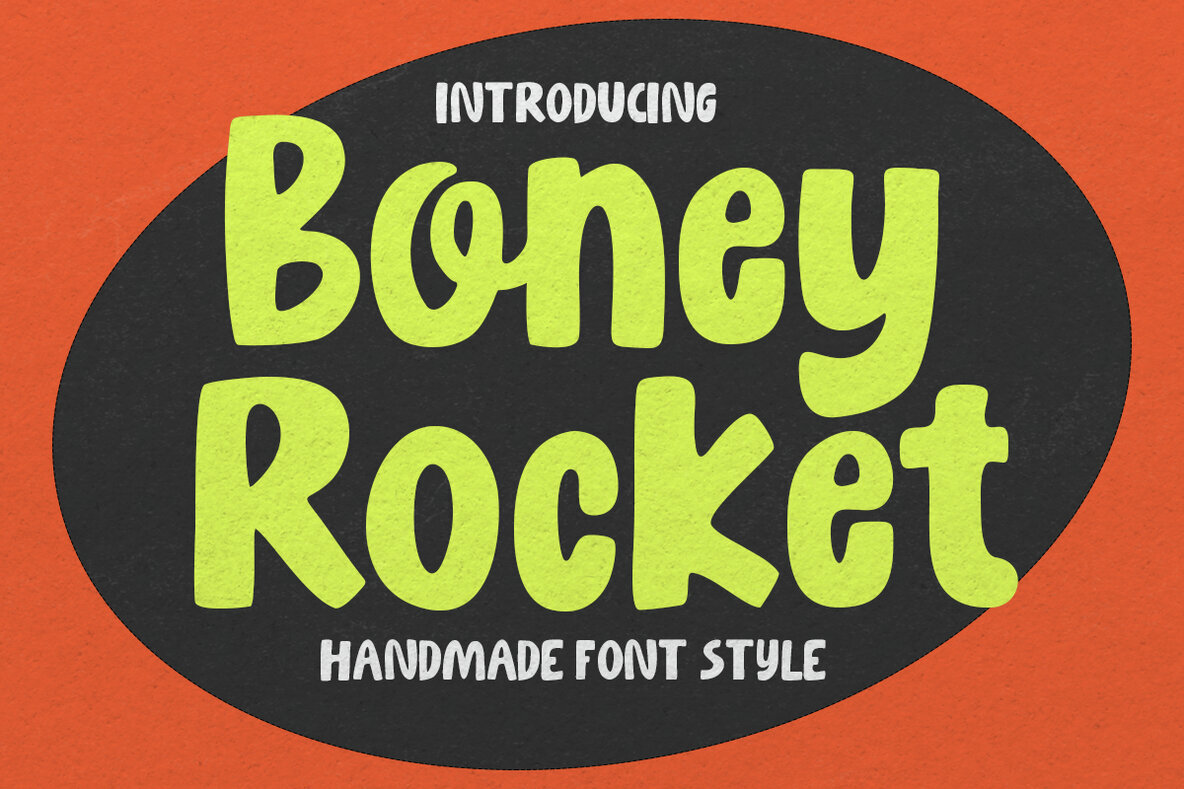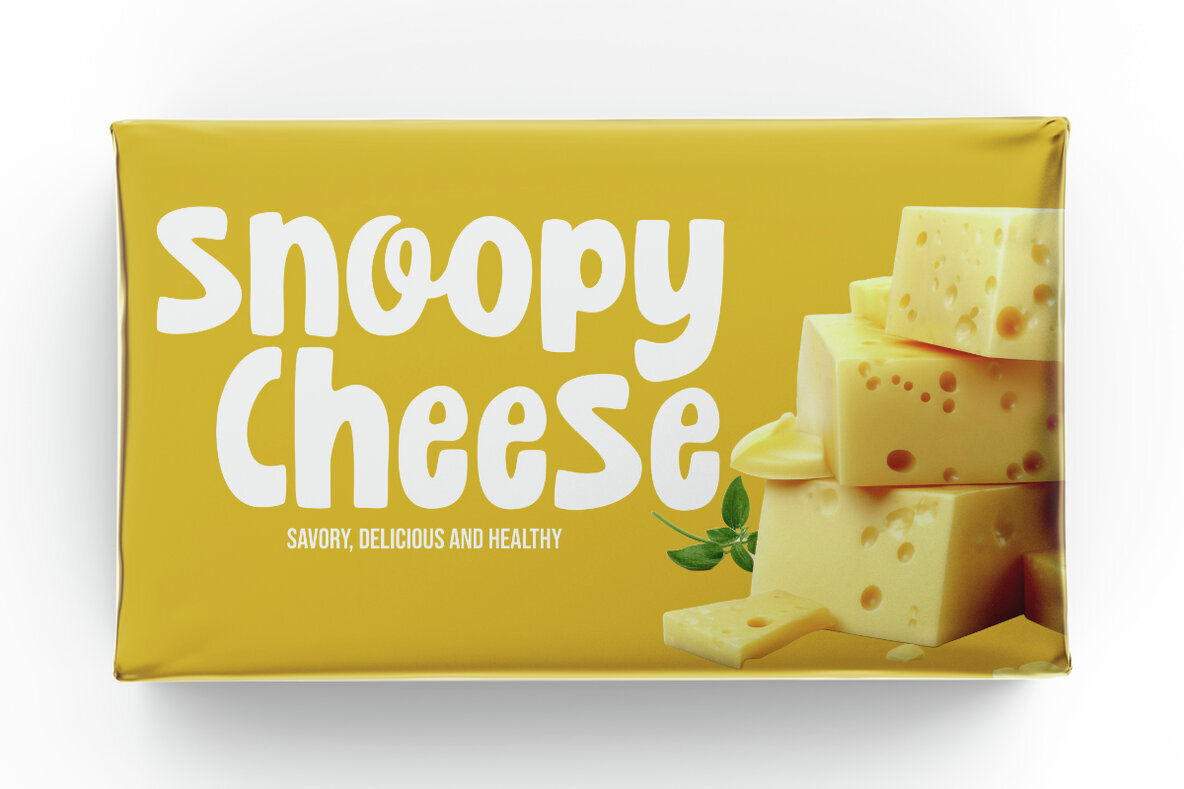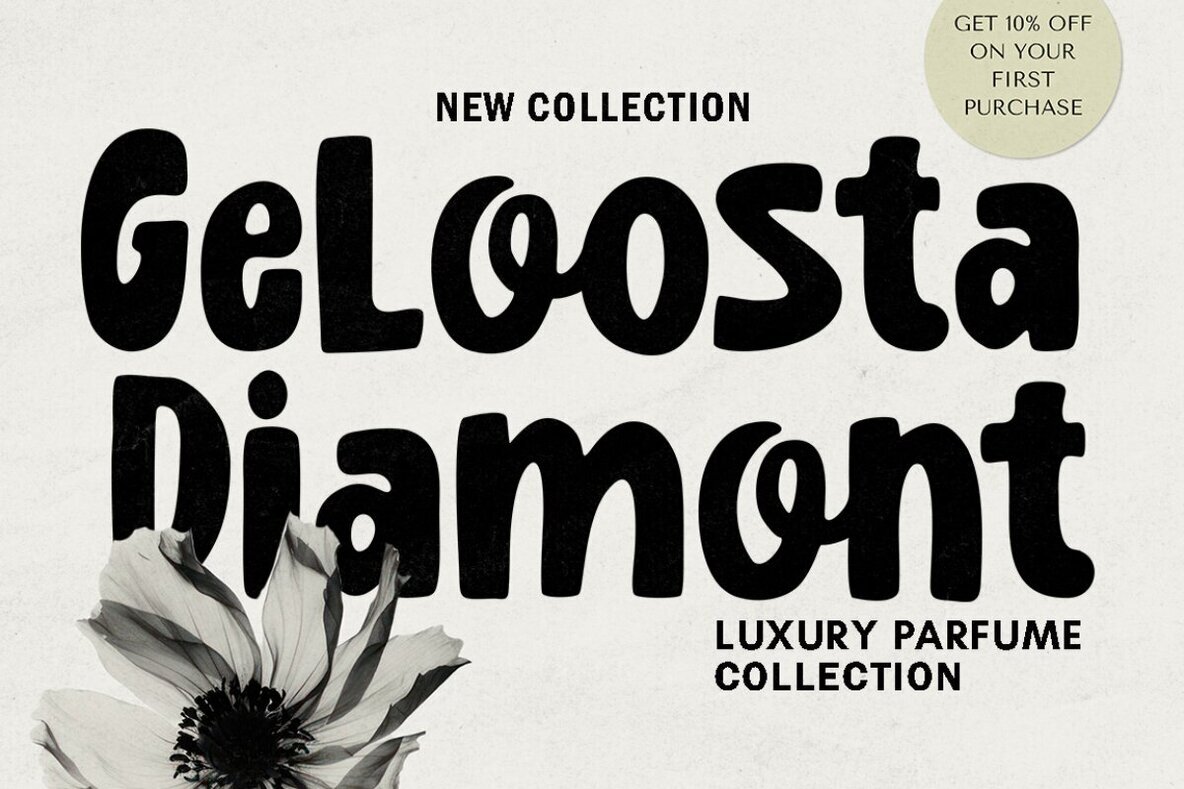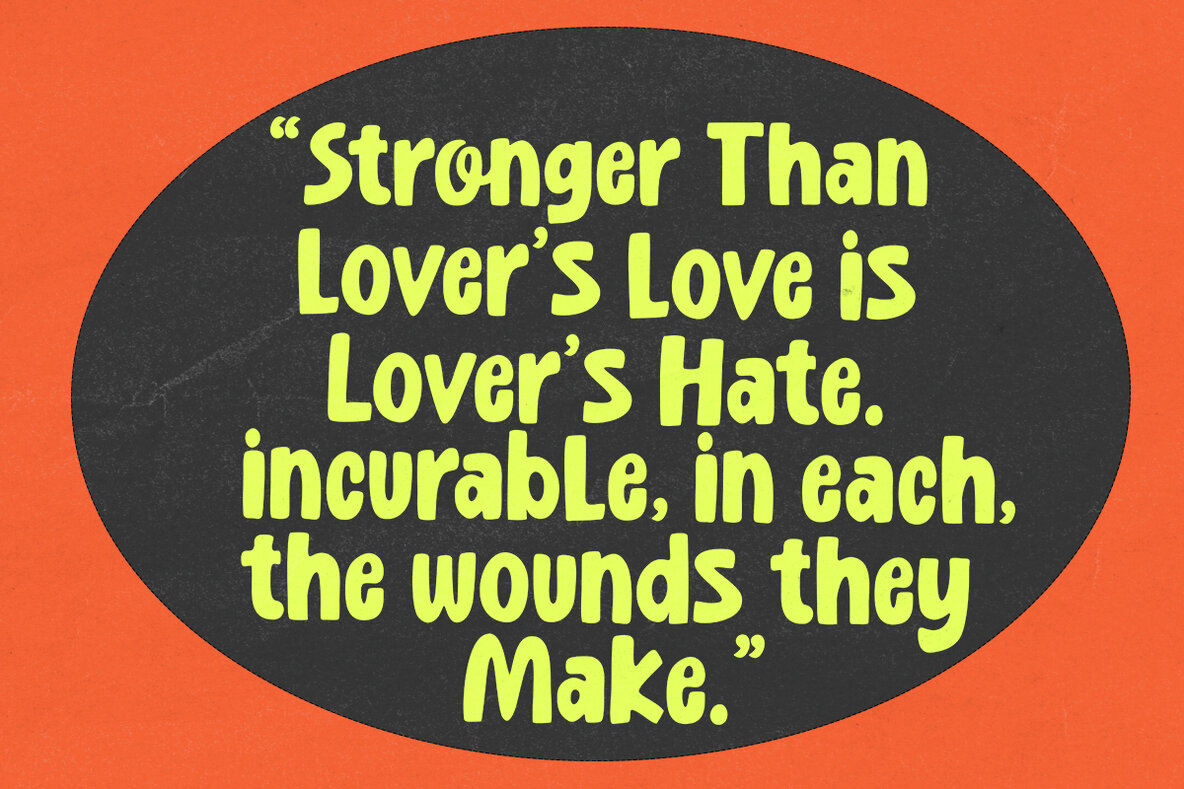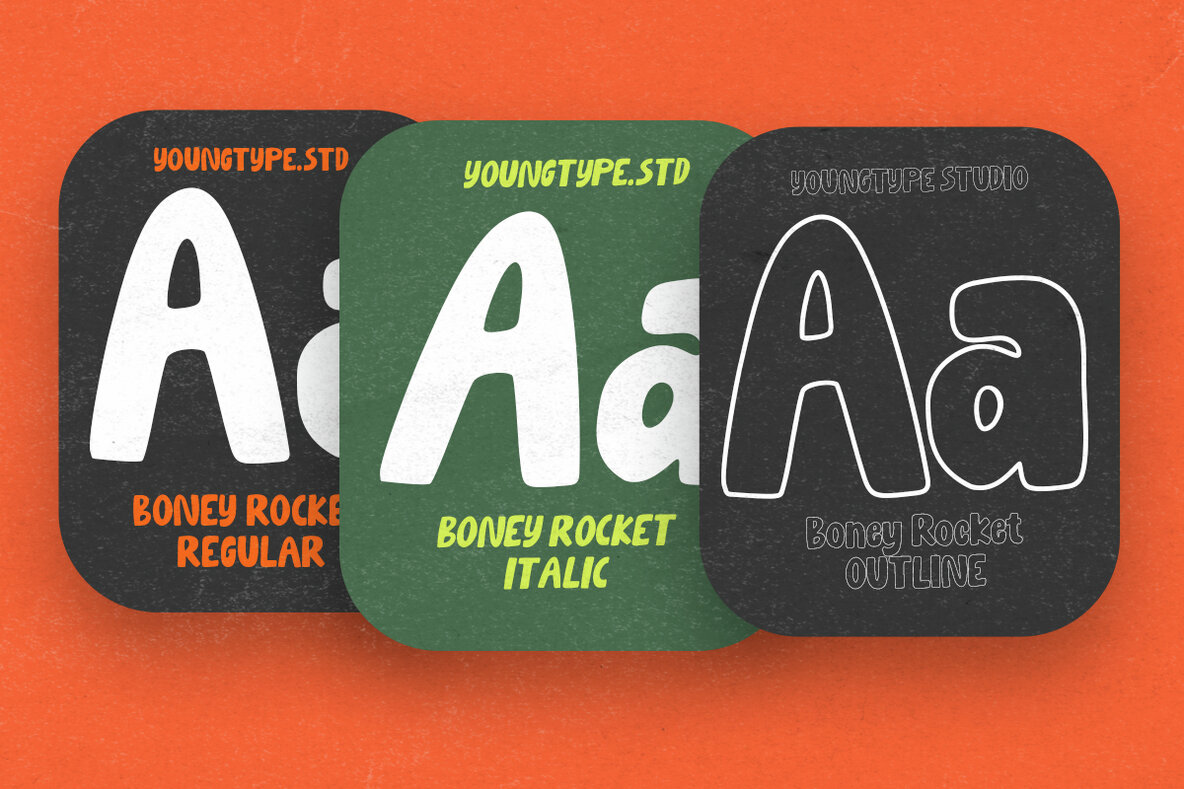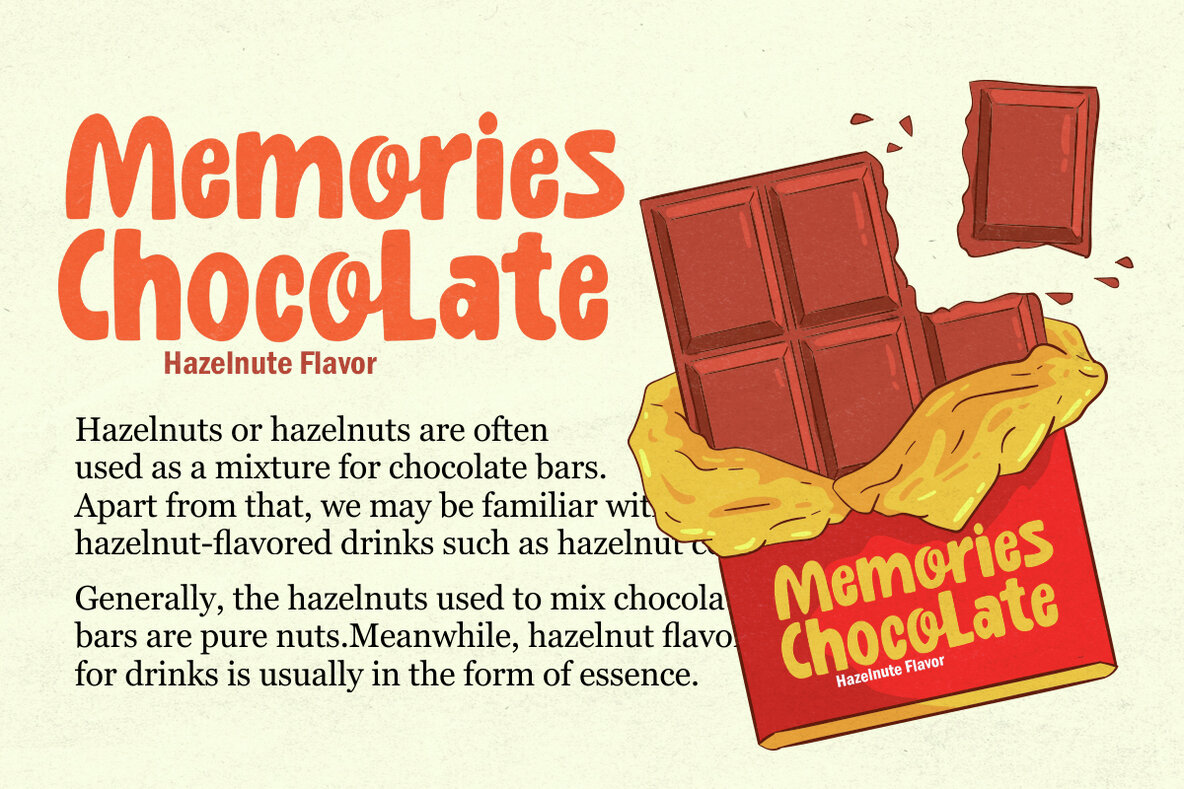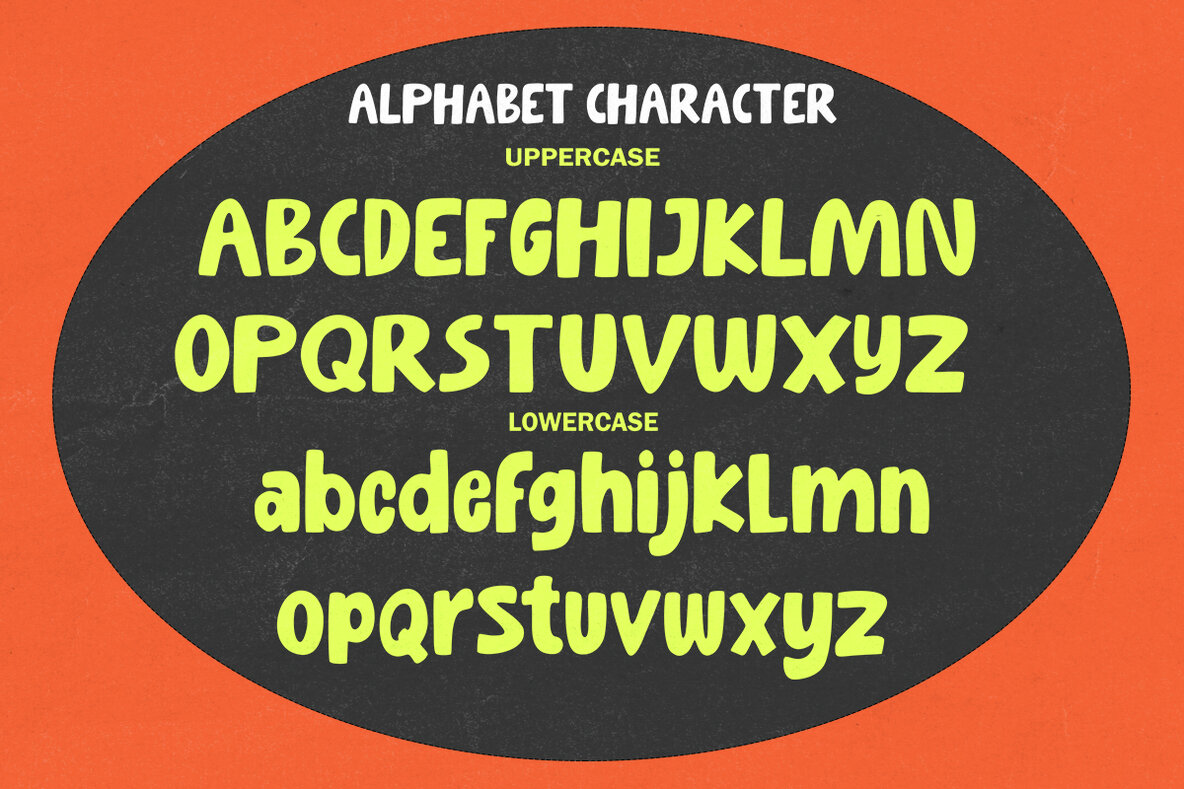
Boney Rocket Font
Boney Rocket brings a sense of fun and personality to your creative projects. With thick strokes, rounded edges, and quirky letterforms, this font exudes retro charm while maintaining a contemporary, approachable feel. Ideal for those looking to add a bold statement to their designs.Boney Rocket: A Bold, Playful Display Font